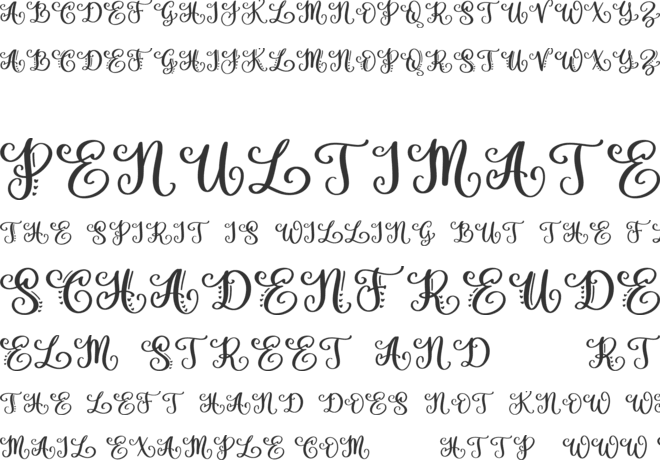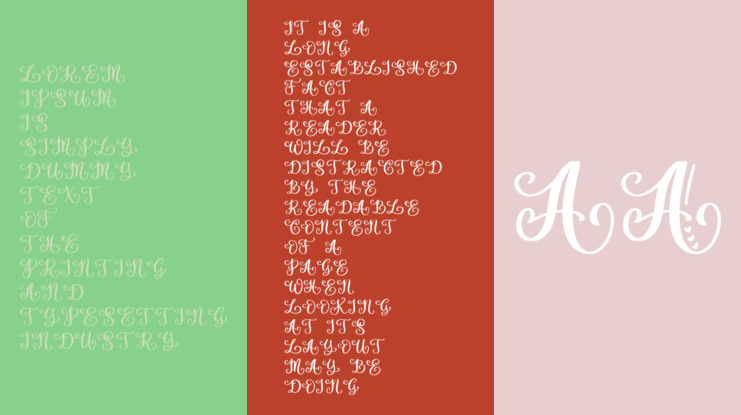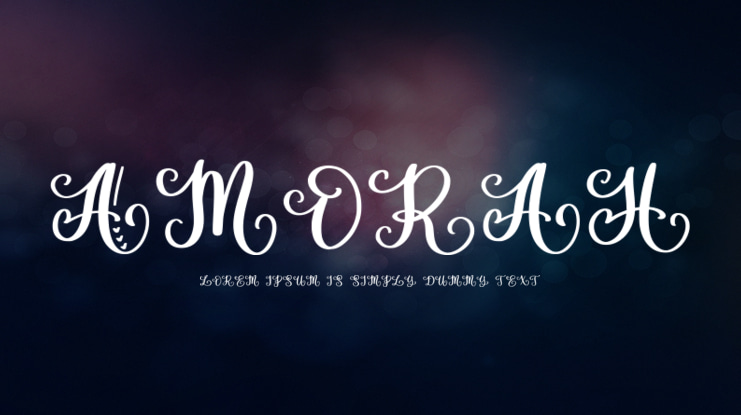
Amorah Font
AMORAH MONOGRAM - beauty handwritten monogram font -
This font is designed for crafters. It is great for wedding invitation, tote bag design, mug, cutting, silhouette, branding, packaging, quotes, t-shirt design, card, banner, and anything of craft project.